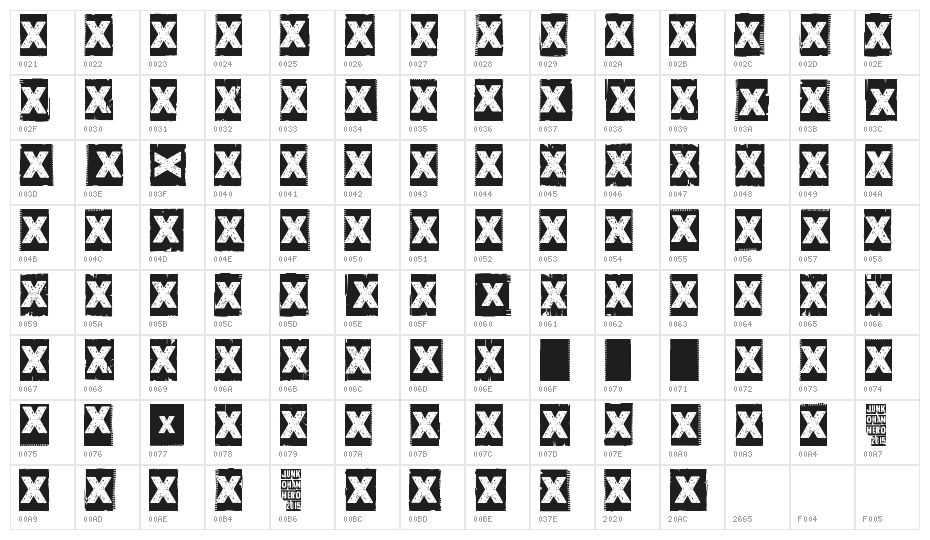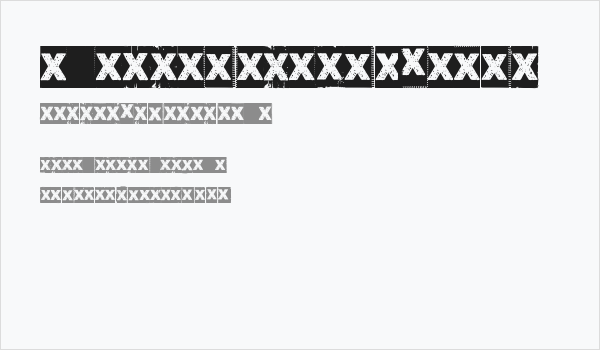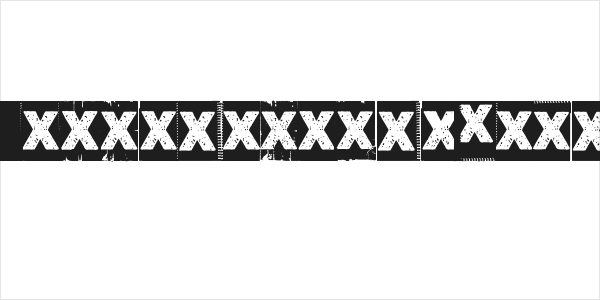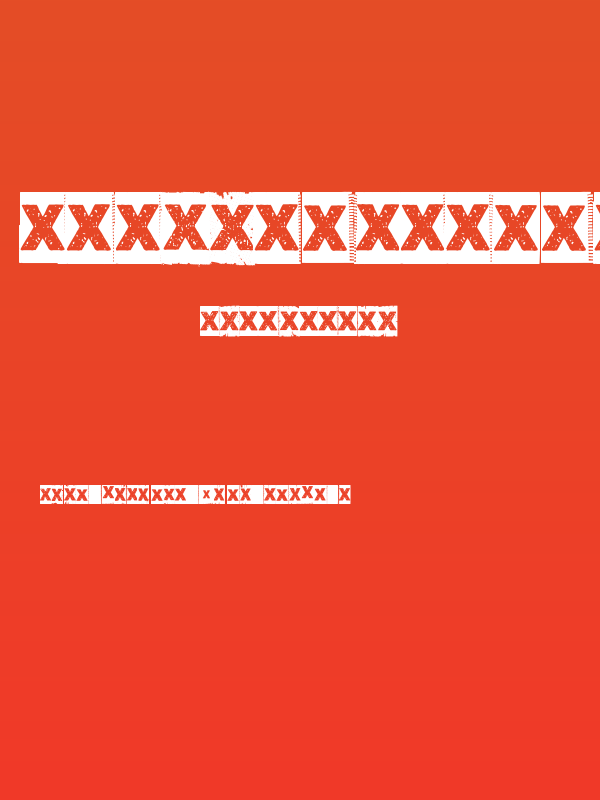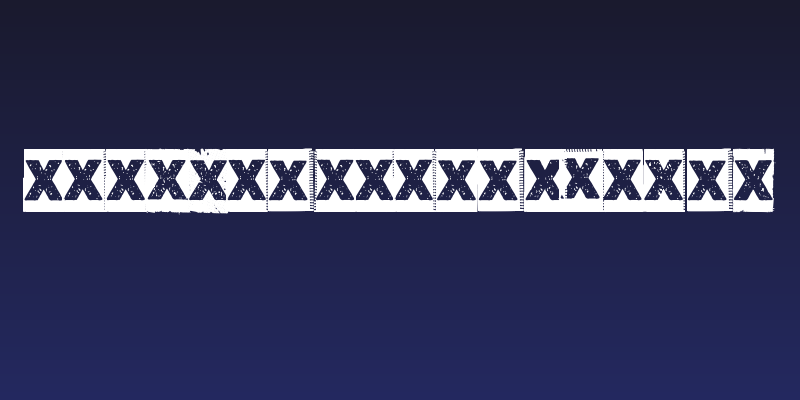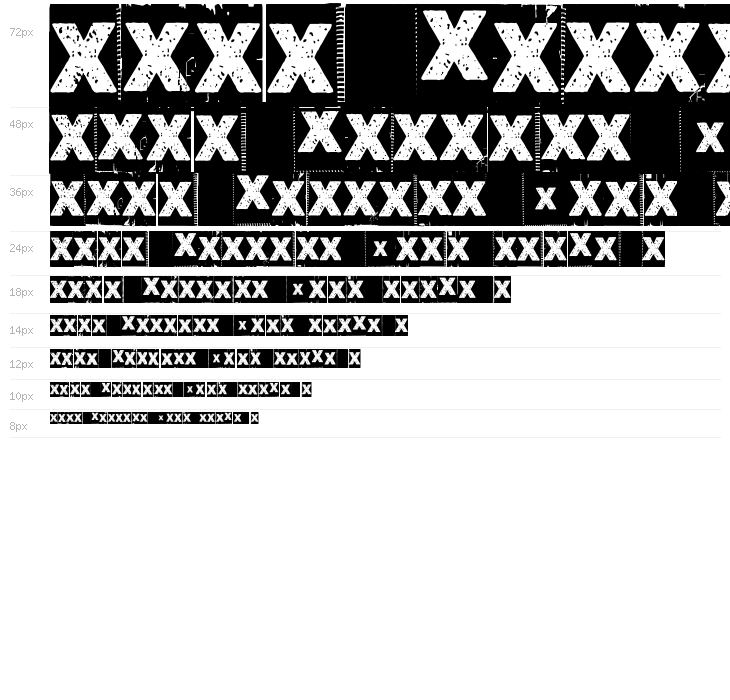
Corner Dark Just X Font
Corner Dark Just X Description
This is not a valid font. The image consists solely of the letter 'X' repeated in various arrangements. There are no other characters or variations present to form a complete font set.
| Proposed Projects | None, as this is not a complete font. |